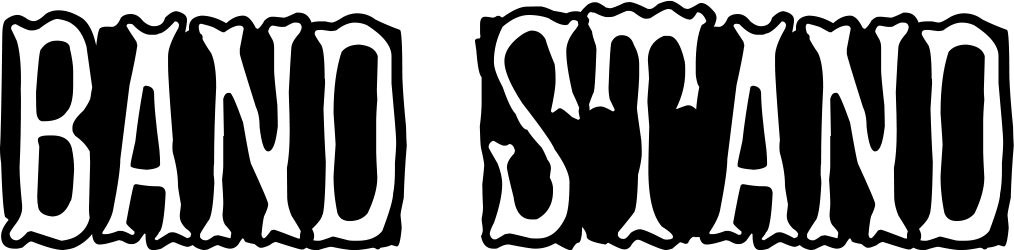
Band Stand Font
Western fonts are coming in various styles, but the good ones are not so ubiquitous. The letters of Band Stand include labels and that’s why sound more professional and striking. It fits logos, flyers, badges, etc. Take it right now and share an artistic vibe. If you want more, discover our unbounded website.